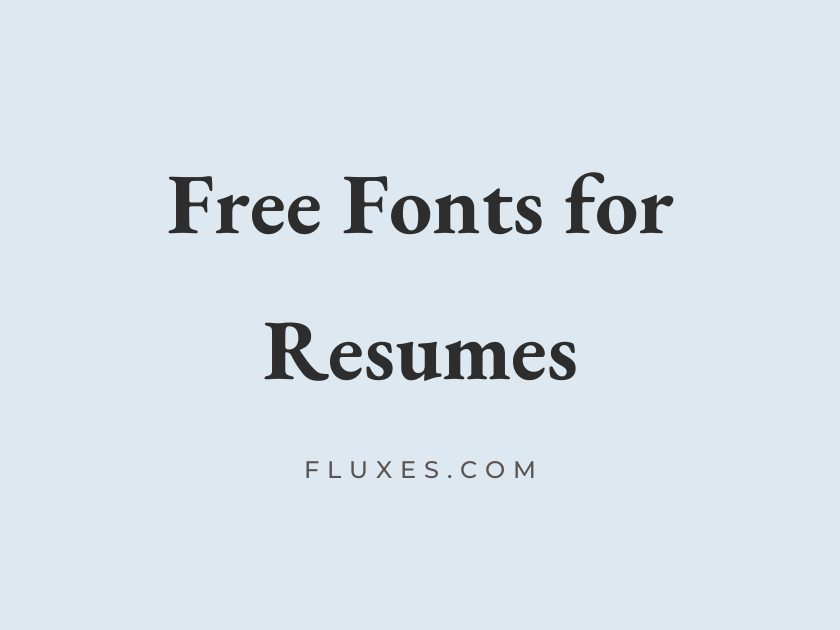
62 Best Free Fonts for Resumes
A resume has one job: get read quickly and taken seriously. That means the typeface matters more than most job seekers realize, since it sets the tone before a single word of experience is absorbed. The best free fonts for resumes tend to share a few traits: clean letterforms, generous spacing, and enough personality to feel considered without ever distracting from the content.
1. EB Garamond
Modeled on Claude Garamont’s Renaissance types, this serif carries an old-world credibility that suits law, publishing, and academic resumes especially well. The lowercase has real warmth at body-text sizes, though it can look a touch light on cheap printers, so pairing it with a bold weight for headings helps it hold structure.
2. Source Serif 4
Built by Adobe to complement Source Sans, this serif reads as calm and trustworthy without leaning decorative. It is a dependable choice for a resume that needs to feel polished but not fussy.
3. Lora
Lora’s slightly brushed curves give it a literary, contemporary feel that photographs well on screen and in print alike. It suits writers, editors, and marketing resumes that want warmth without sacrificing crispness at small point sizes.
4. Merriweather
Designed specifically for on-screen reading, Merriweather has sturdy serifs and a slightly condensed body that stays legible even when a resume is squeezed onto a single page. Its confident weight makes it a good match for management and operations roles.
5. PT Serif
A workhorse serif with wide language support and an even, businesslike rhythm. It has none of the flourish of more editorial serifs, which makes it a safe pick for engineering, finance, or government resumes.
6. Crimson Pro
Crimson Pro leans into classic book typography, with fine contrast and elegant italics that suit academic CVs and research-heavy resumes. It rewards a little extra line spacing, since its delicate strokes can feel cramped if set too tight.
7. Libre Baskerville
An open-source reworking of the venerable Baskerville, optimized for readability at text sizes. It feels traditional and unimpeachable, the kind of serif a hiring manager would associate with a well-run law firm rather than a startup.
8. Cormorant Garamond
This is a display-leaning serif best reserved for a name or headline rather than dense body copy, since its high contrast strokes thin out at small sizes. Used sparingly at the top of a resume, it lends a fashion- or design-industry elegance that pairs nicely with a plainer sans for the details below.
9. Bitter
A slab serif with just enough softness in its curves to avoid feeling heavy, Bitter reads as steady and grounded on the page. It suits operations, logistics, and other roles where a resume benefits from a sense of reliability.
10. Vollkorn
German for “whole grain,” Vollkorn has an unpretentious, well-built quality that mirrors its name. It is an understated serif choice for accounting, finance, or administrative resumes that want to look careful rather than showy.
11. Noto Serif
Part of Google’s Noto family, built to cover virtually every script on earth, this serif is the practical choice for candidates writing resumes in more than one language or applying internationally. Its letterforms are plain by design, prioritizing consistency over character.
12. Spectral
Originally commissioned for long-form reading on screens, Spectral has a slightly humanist, editorial voice that flatters resumes in publishing, media, and communications. Its regular weight is crisp; its light weight is best avoided for a resume’s body text.
13. Domine
Domine was built for headlines but holds up surprisingly well as resume body text, thanks to its sturdy, upright forms. It has a formal, slightly bookish feel that works for legal and administrative fields.
14. Alegreya
Inspired by literary typography from centuries past, Alegreya has a lively calligraphic rhythm that suits humanities, arts, and cultural sector resumes. It is expressive enough to have personality, though best kept to a moderate size where its details remain sharp.
When exporting to PDF, embed the font rather than relying on the viewer’s system fonts, so formatting stays consistent wherever the file is opened.
Test a printed copy in black and white, since some lighter weights that look fine on a backlit screen can appear thin or gray on paper.
Whichever of these free Google Fonts ends up on the page, the goal is the same: a resume that reads as clear, current, and easy to trust within the first few seconds of a hiring manager’s attention.